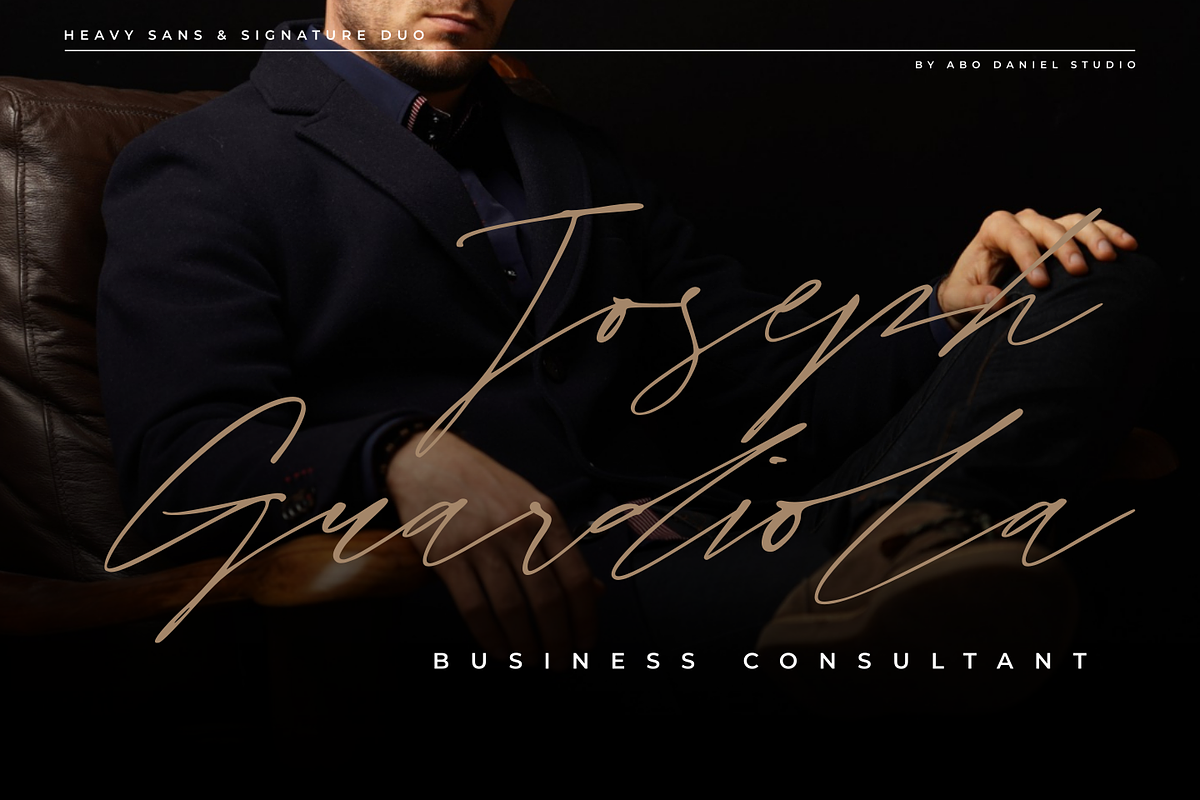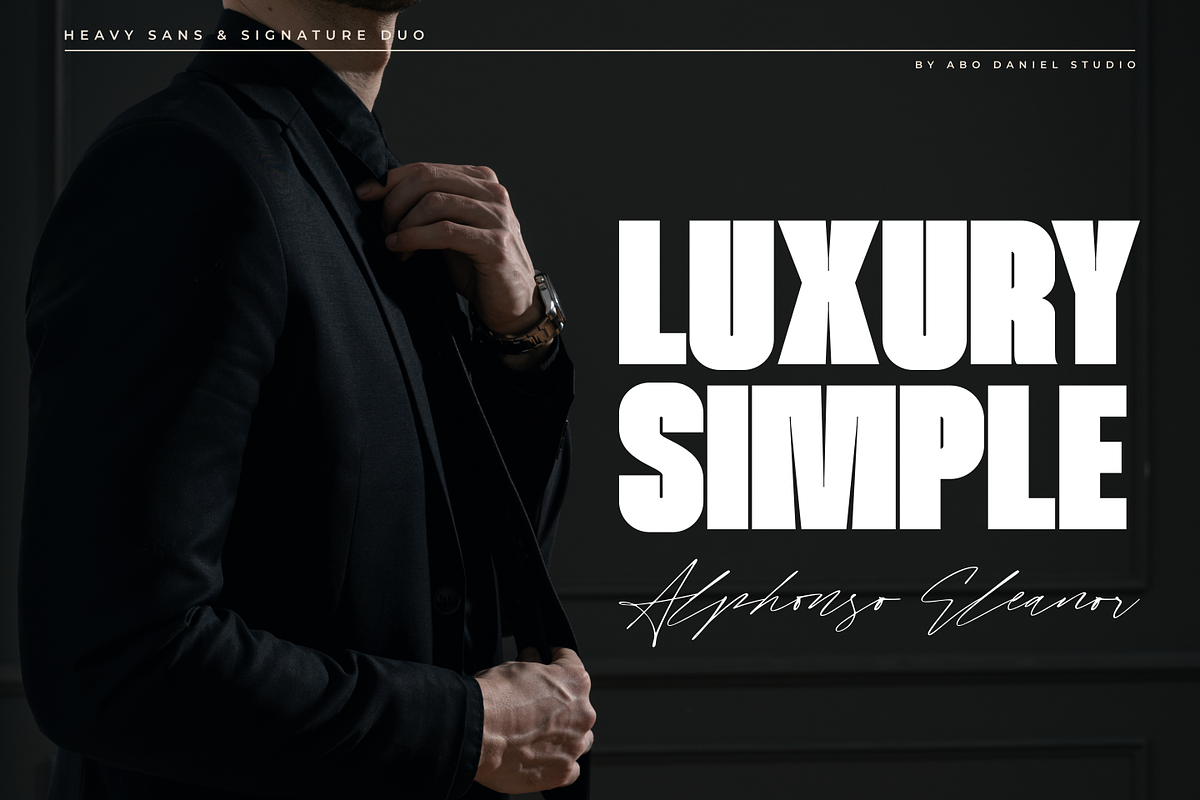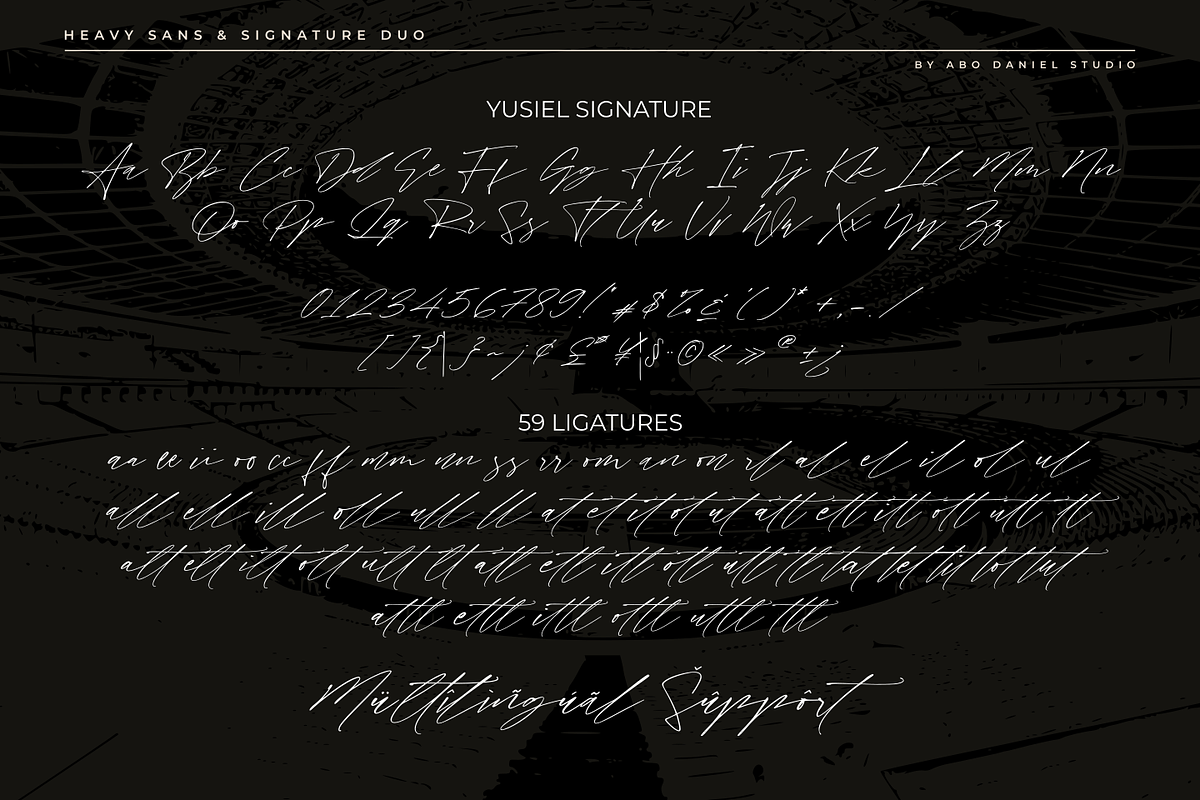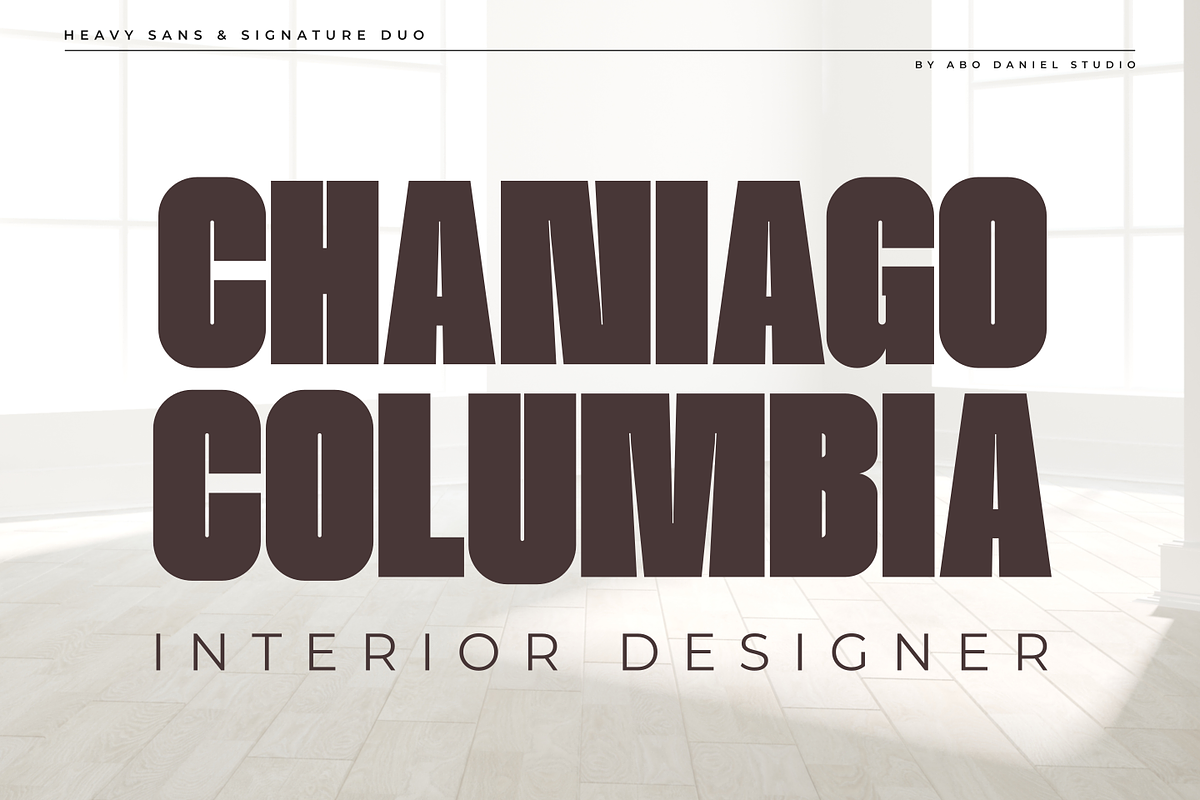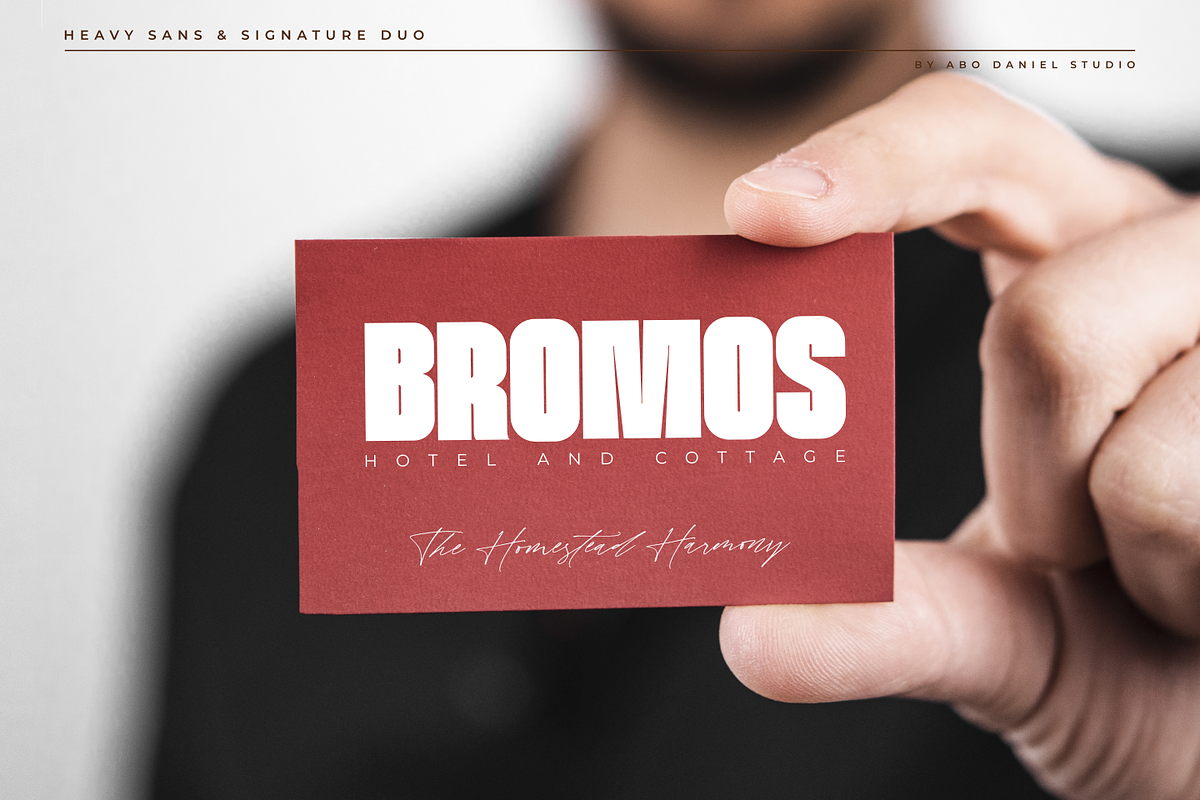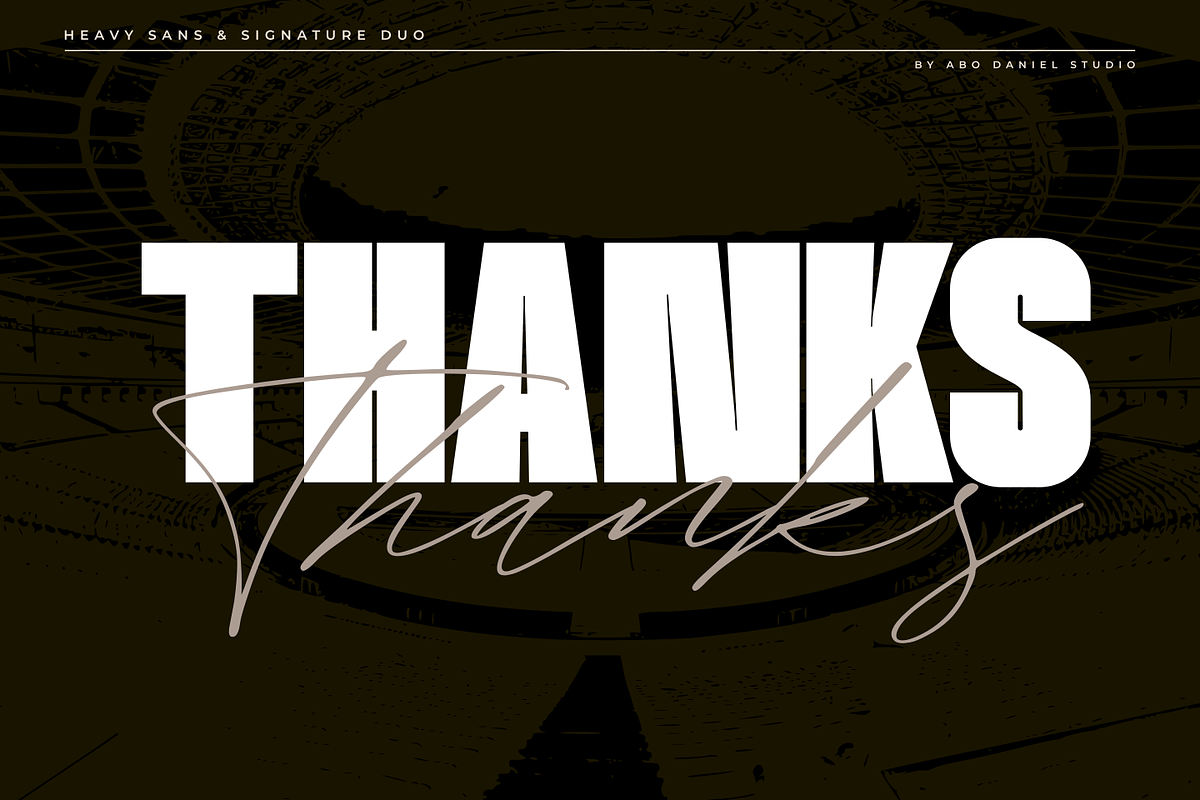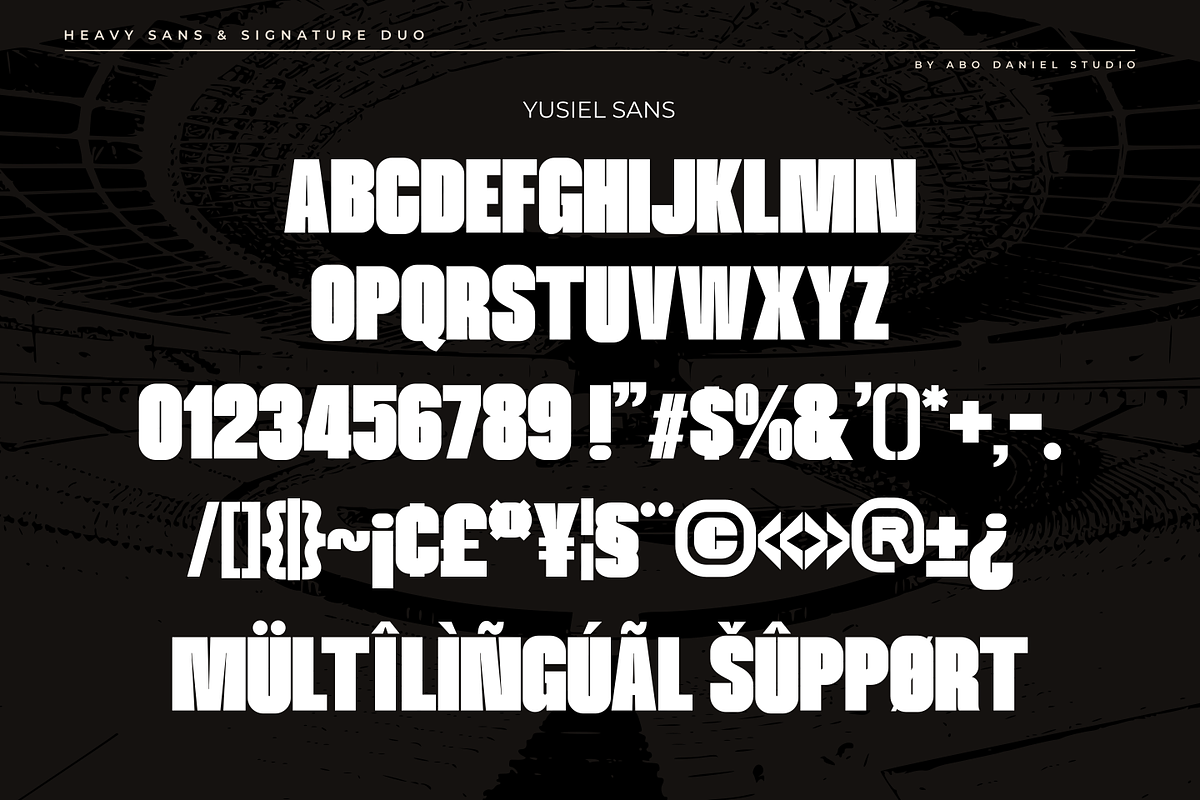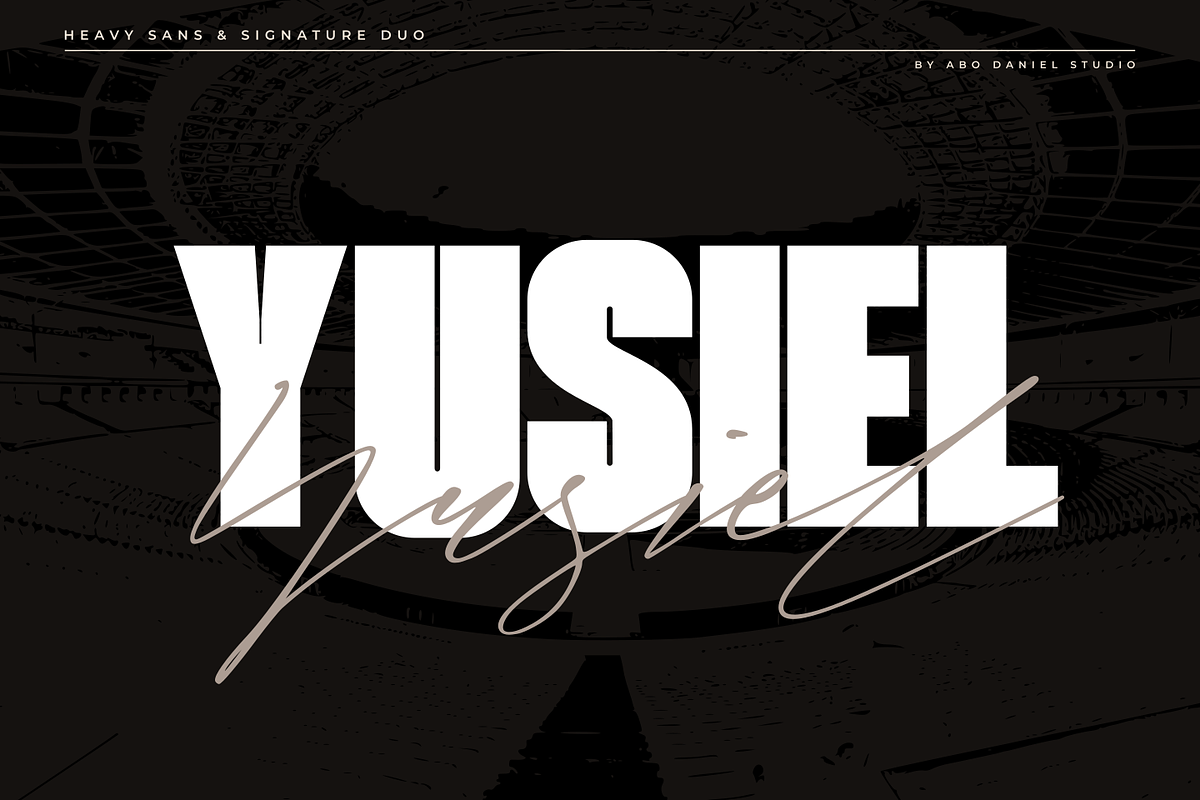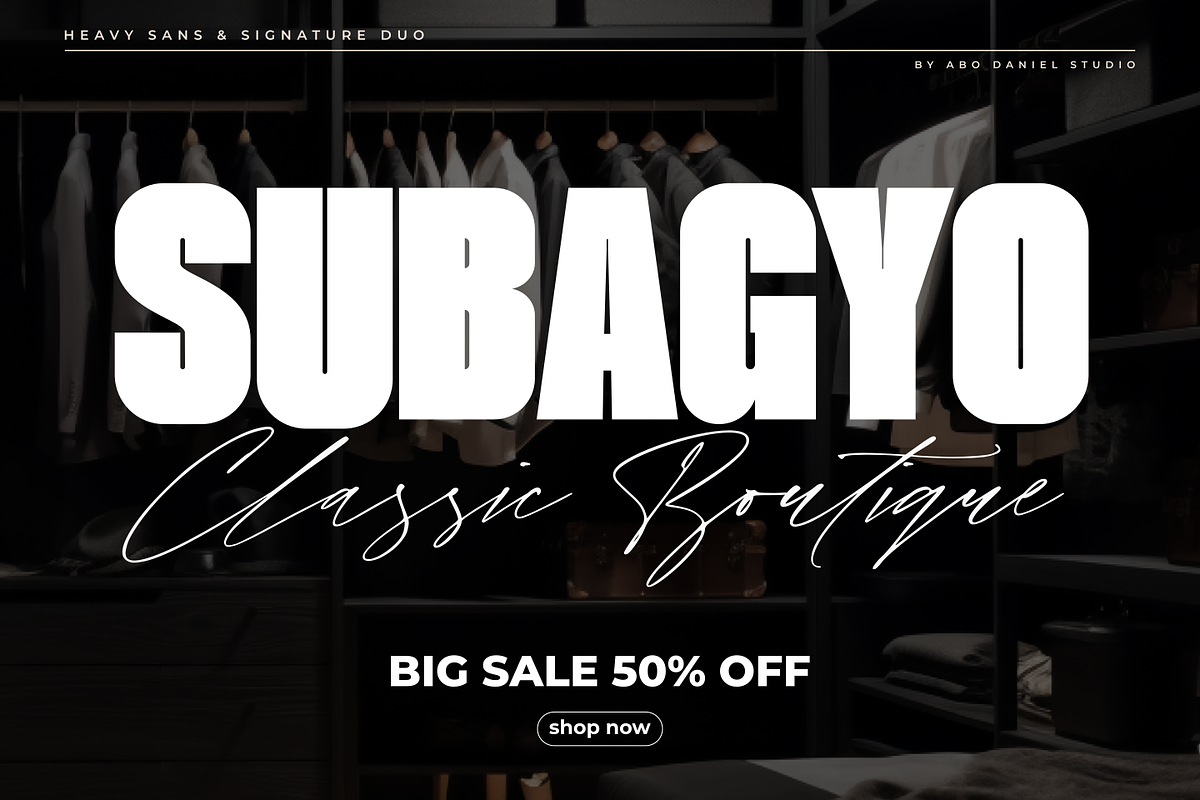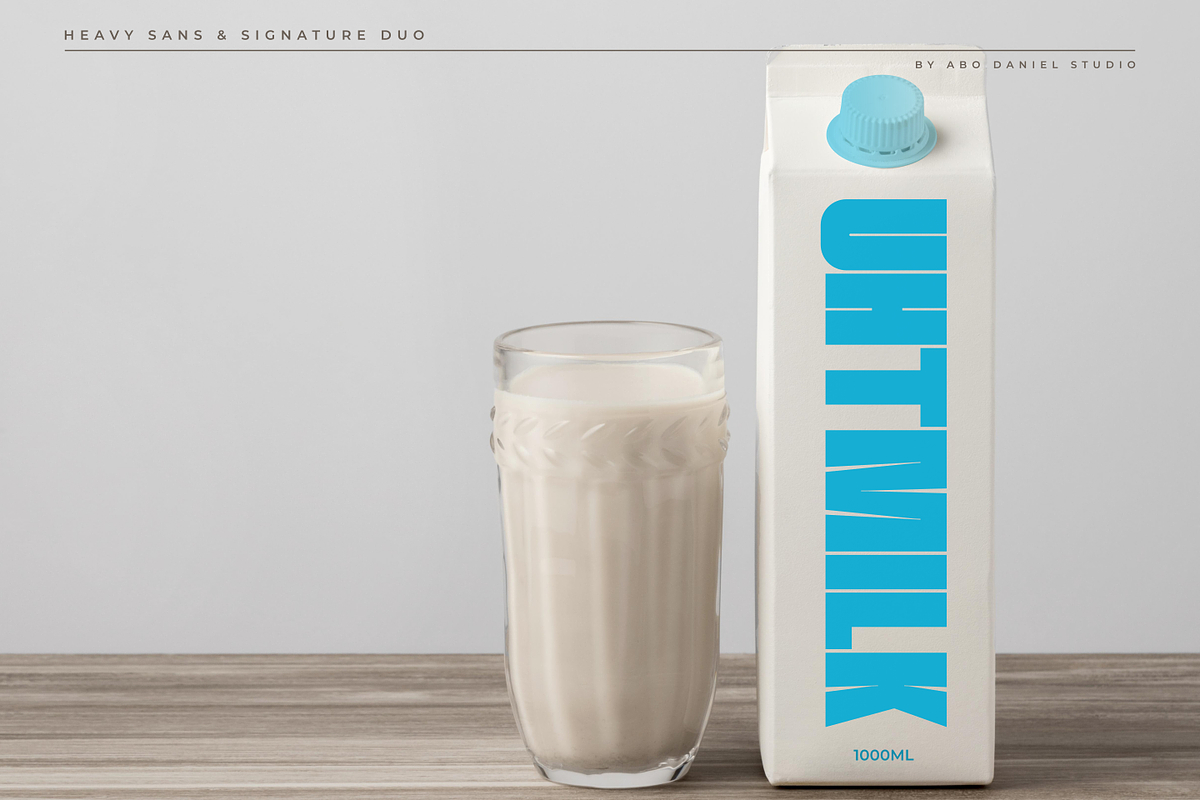
Yusiel
Yusiel is a versatile font duo that blends bold confidence with elegant personality. Yusiel is a versatile font duo that blends bold confidence with elegant personality. Featuring a powerful Heavy Sans and a flowing Signature Script, this typeface combination is designed to create eye-catching designs with a modern and stylish edge.
Whether you want to create bold statements or sophisticated branding, Yusiel gives you the flexibility to mix strength and elegance in one seamless type family.
Yusiel Sans
Yuseil Signature
Uppercase & Lowercase Characters
Branding, logos, social media, fashion projects, magazine titles, product packaging, wedding designs, quotes, and modern typography creations.